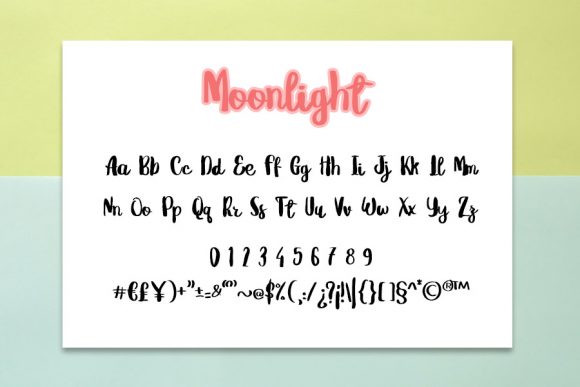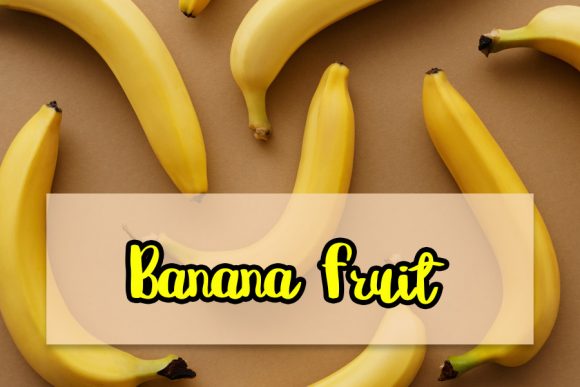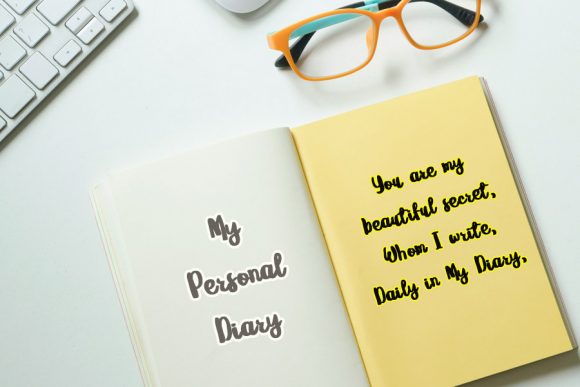
About Moonlight Font
Moonlight is a romantic and elegant handwritten font. Dainty and joyful, this font will be ideal for writing wedding invitations, cards or any other design that may need a romantic, personalized touch!